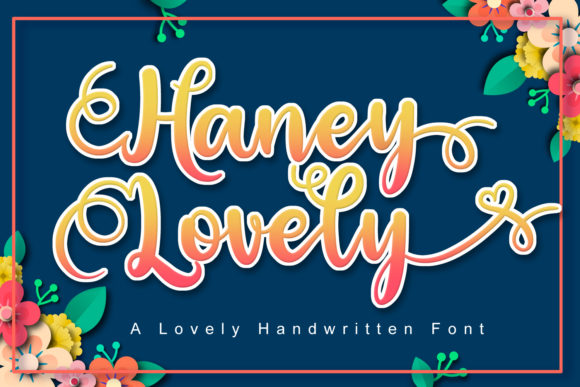
Prepare to fall head over heels for Haney Lovely, an enchanting script font that will add a touch of timeless elegance to your creative projects.
With its whimsical and romantic flair, Haney Lovely is like a love letter written in flowing ink. Its delicate curves and mesmerizing swashes will make your words dance on the page, captivating the hearts of your readers.
Whether you're crafting heartfelt wedding invitations, creating stunning social media posts, or designing captivating headlines, Haney Lovely is the perfect font to convey your message with grace and charm. Its versatility knows no bounds, allowing it to elevate any project from ordinary to extraordinary.
Haney Lovely isn't just a font; it's an invitation to let your creativity soar. Its PUA encoding ensures that you can effortlessly access all of its hidden treasures, including a dazzling array of glyphs and swashes.
Indulge in the beauty of Haney Lovely and watch your words transform into works of art. Let its romantic essence enchant your projects and create lasting impressions that will leave your audience breathless.